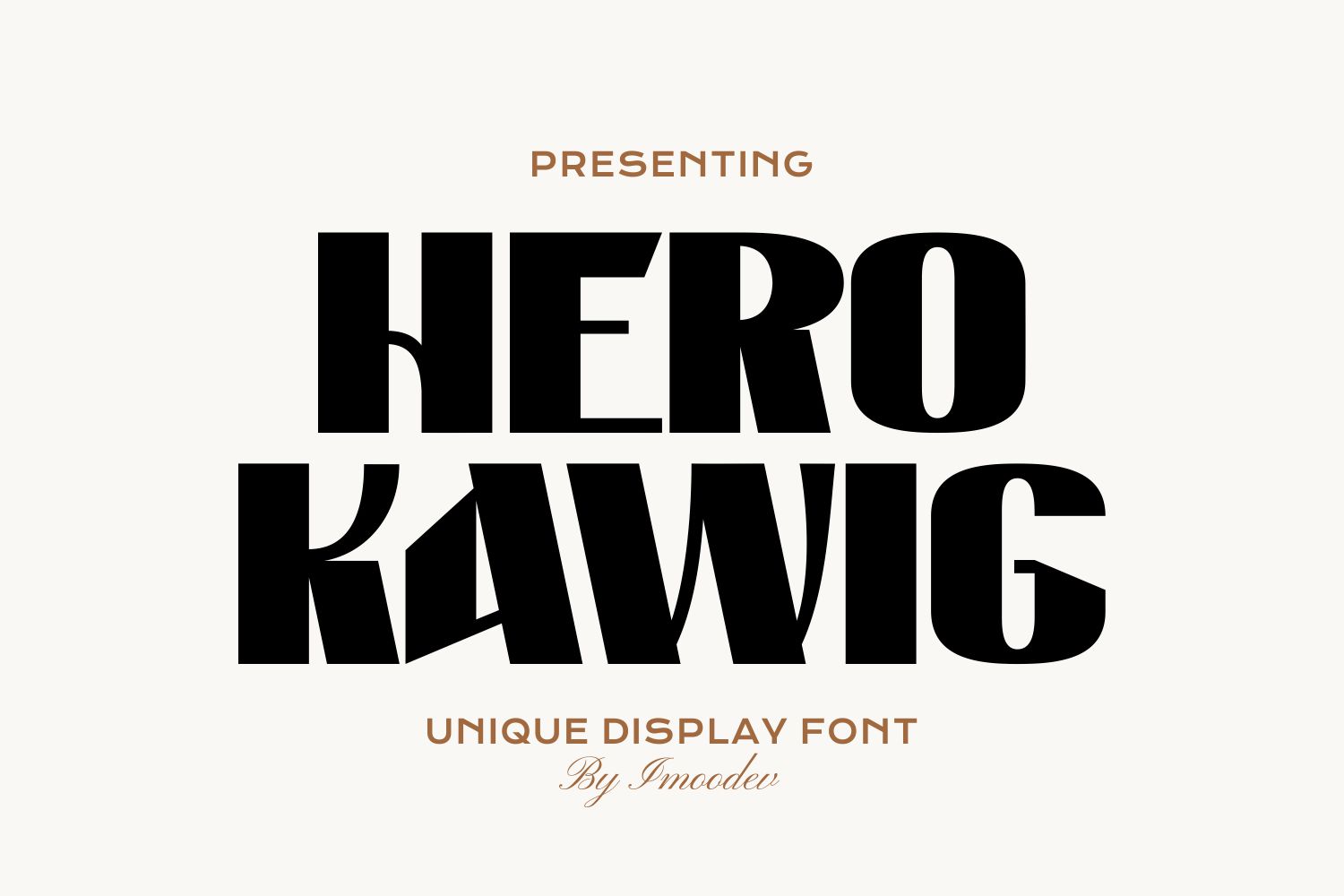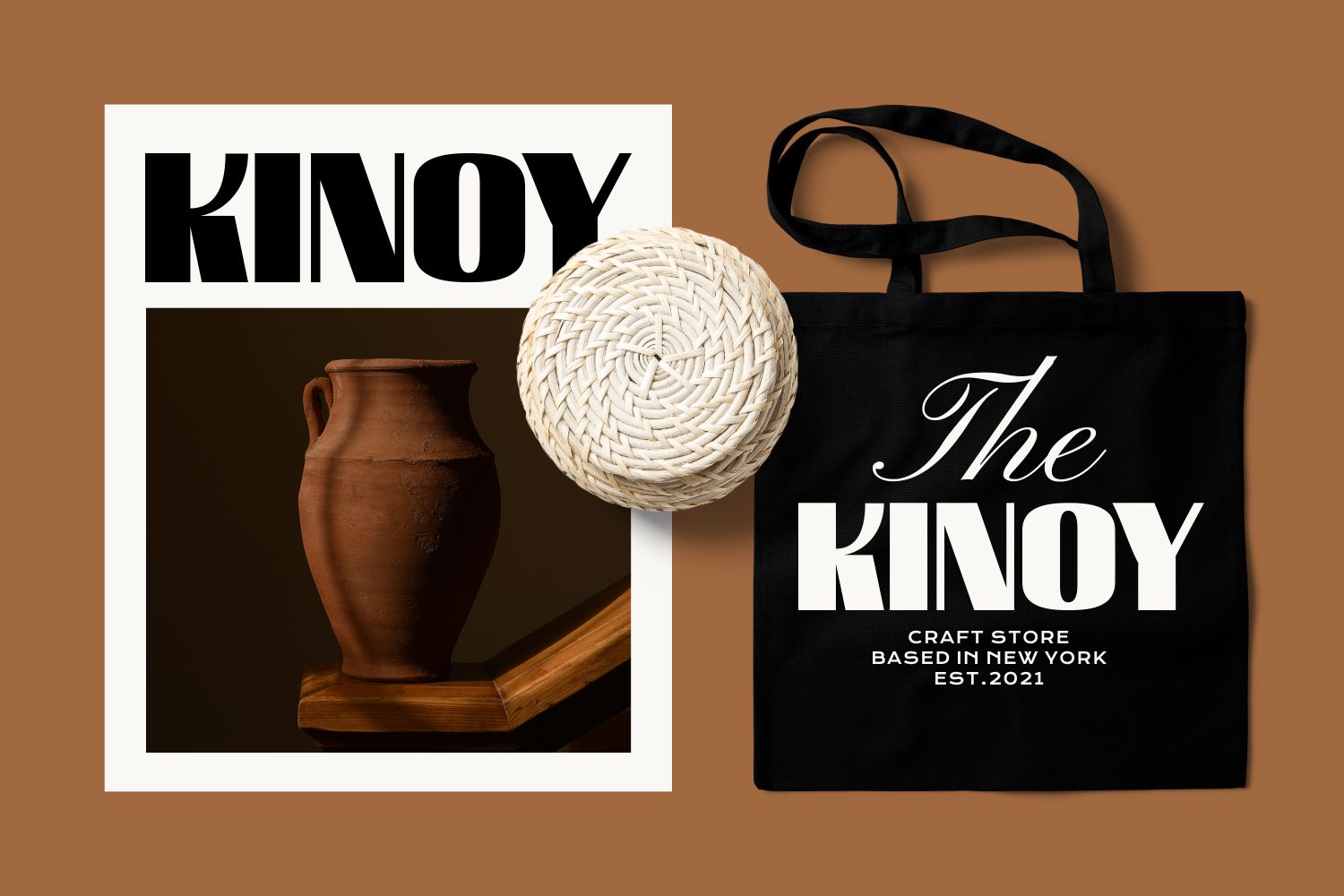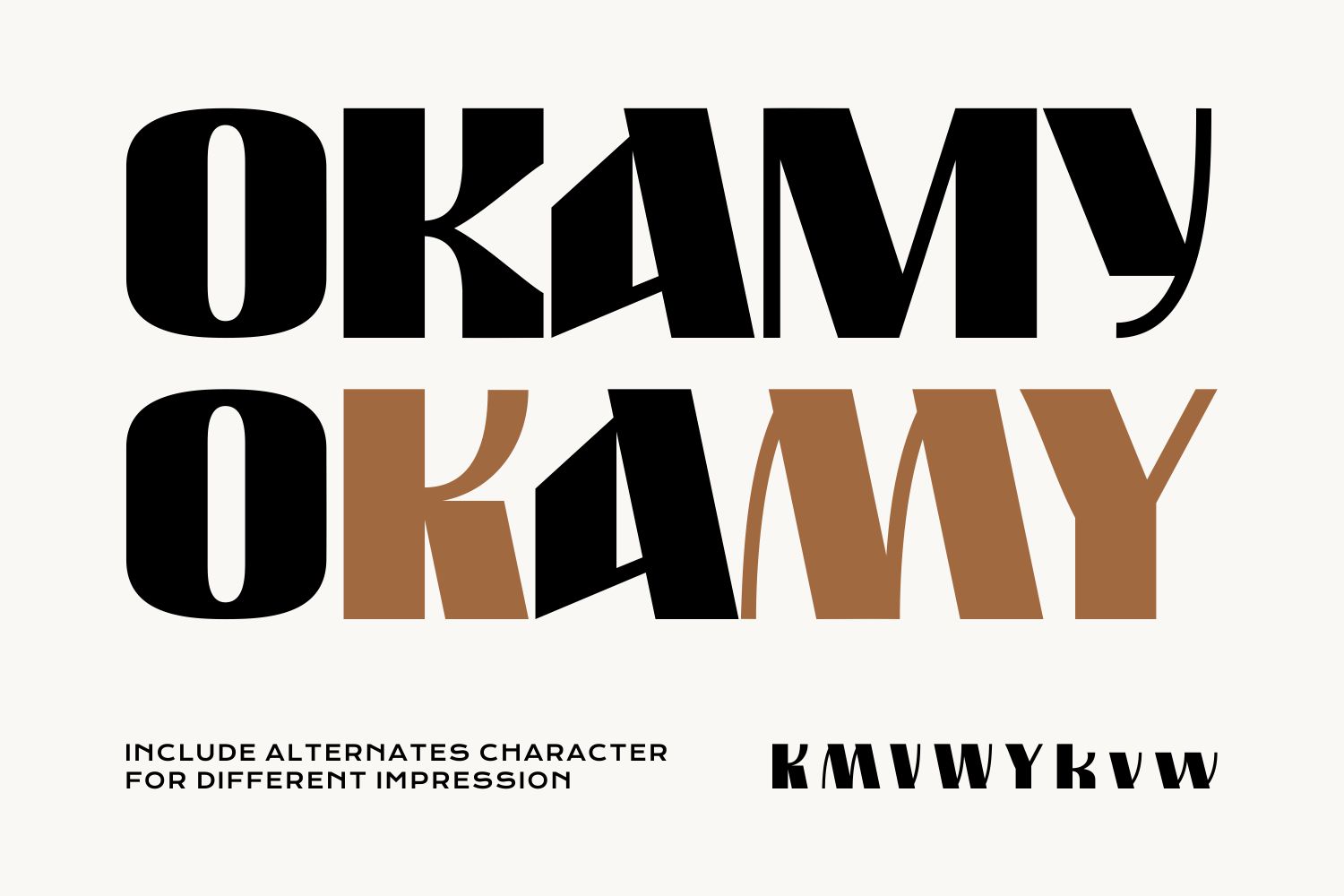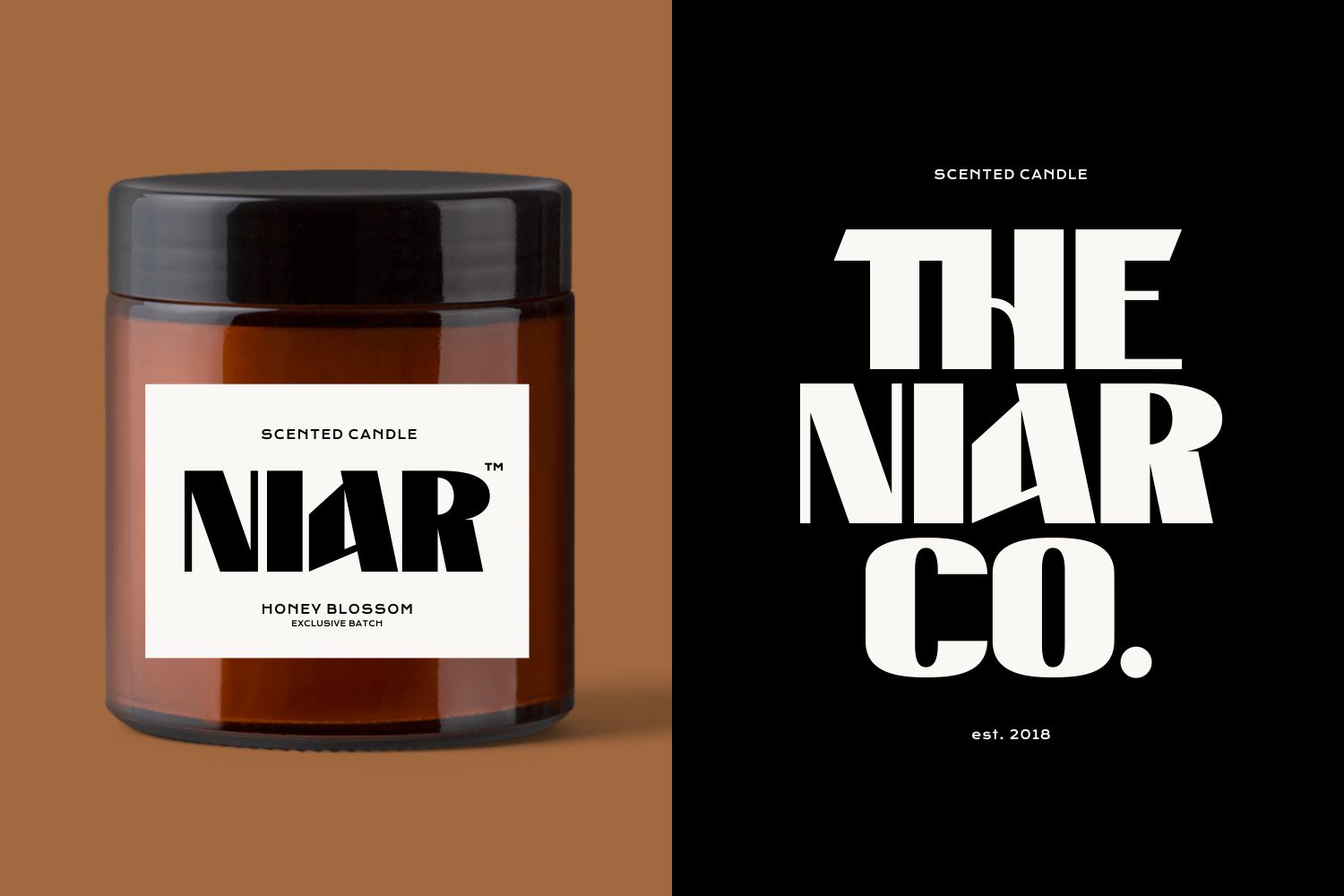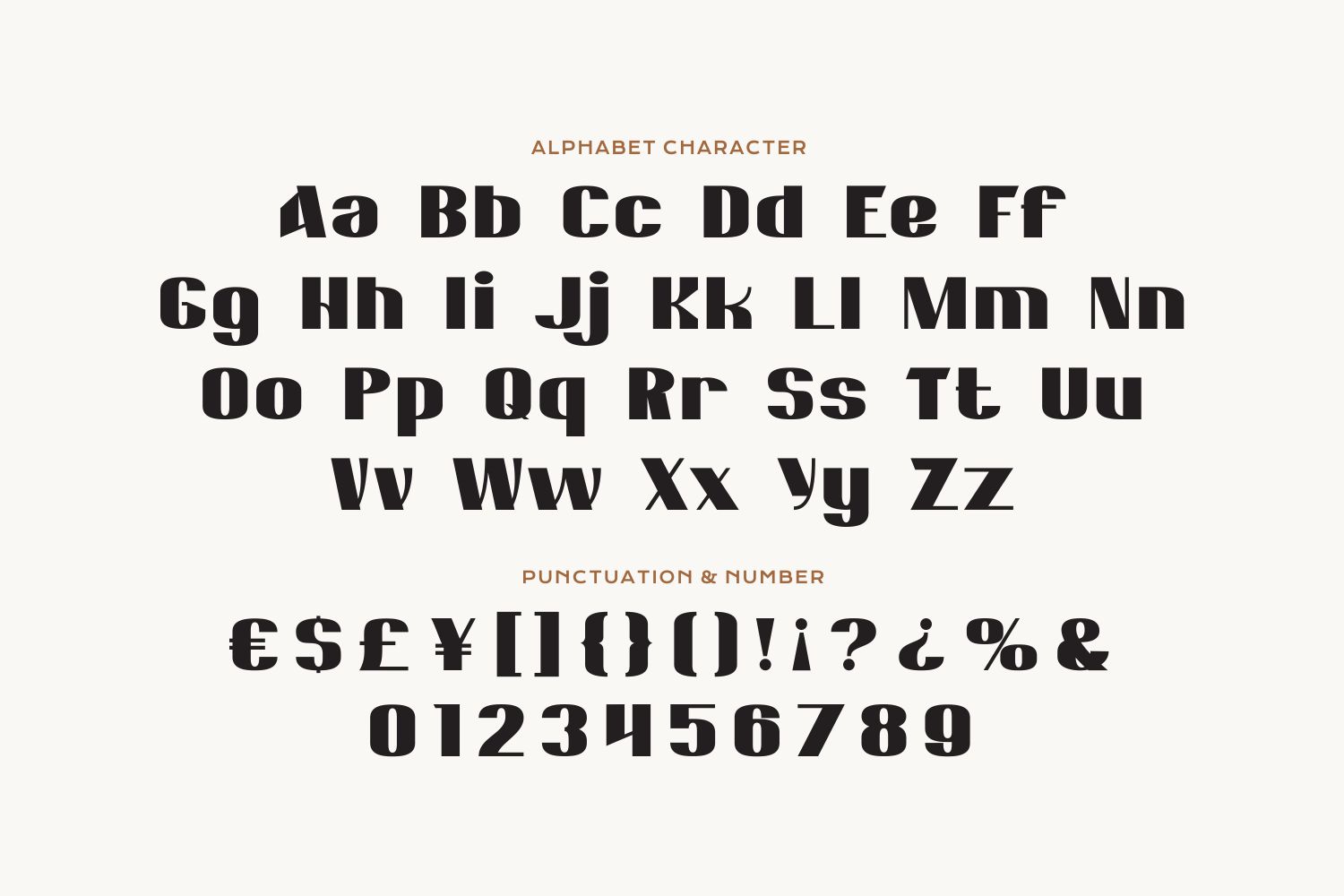
Hero Kawig is a bold and striking display font designed to capture attention with its unique geometric cuts and modern aesthetic. Each letterform combines solid, heavy strokes with dynamic angles, creating a sense of strength and character. The typeface feels powerful yet stylish, making it an excellent choice for branding, posters, packaging, and editorial projects that demand a strong visual presence. With its distinctive details, Hero Kawig stands out as a versatile font that merges contemporary style with bold creativity.
This font also includes alternate characters, offering flexibility to create different impressions and design moods. Whether used for luxury branding, craft product packaging, or statement logos, Hero Kawig delivers a balance of uniqueness and sophistication. Its combination of sharp edges and smooth curves ensures that your designs will stand out with both confidence and originality.
Hero Kawig